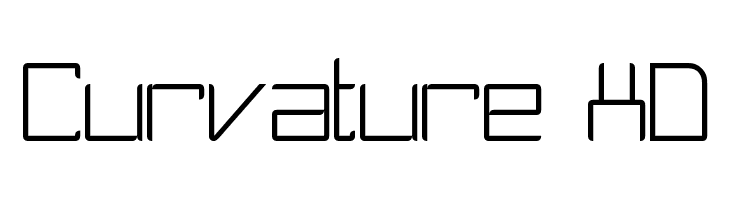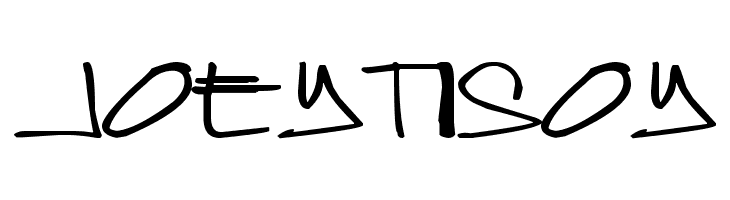
A bold, modern font with sharp angles and high contrast strokes.
A dynamic and flowing script font with elegant, cursive strokes.
An elegant, cursive font with intricate loops and sweeping curves.
An artistic and dynamic font with flowing, cursive-like strokes and bold, expressive characters.
A bold, textured, and italic font with a hand-drawn style.
A bold, playful font with rounded, thick characters and a whimsical style.
A modern sans-serif font with geometric influences and uniform stroke widths.
A bold, blocky serif font with strong, consistent strokes and high contrast.
Barcode-style monospaced font with geometric, vertical bar construction.
A bold, modern font with a circuit-inspired design.